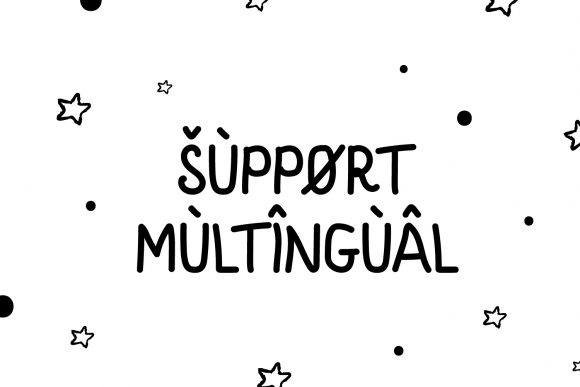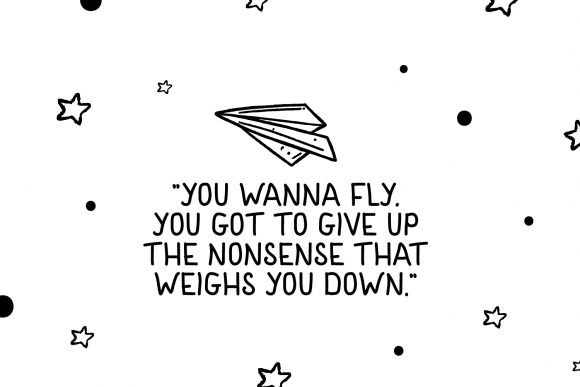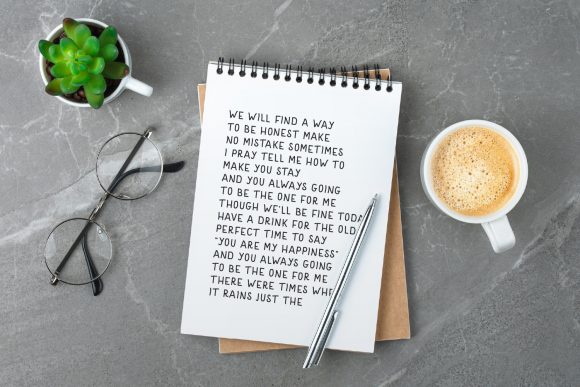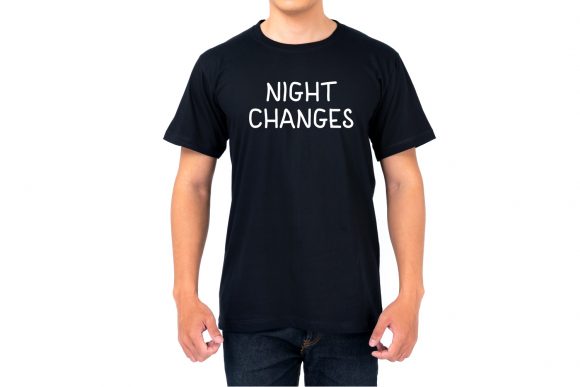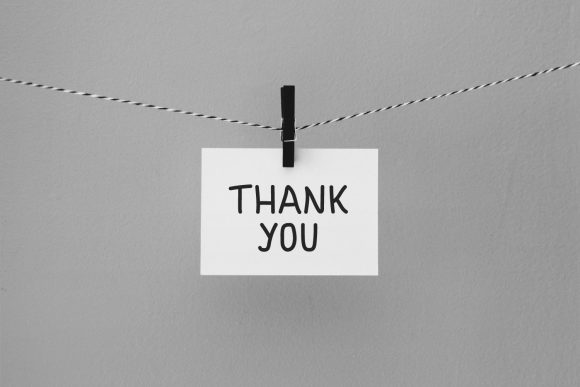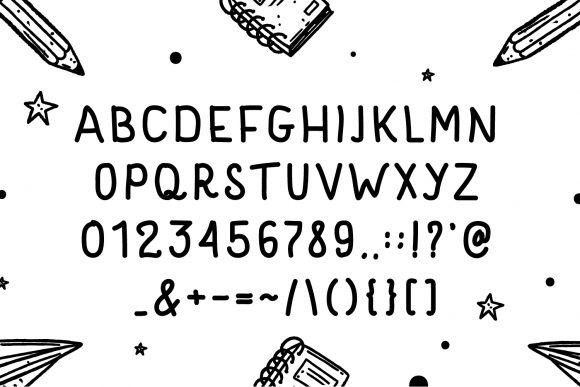
Note Today Font
About Note Today Font
Note Today is a sweet and friendly handwritten font. Its natural and unique style makes it incredibly fitting to a large pool of designs. Have fun with this beautiful font and explore its endless variations.